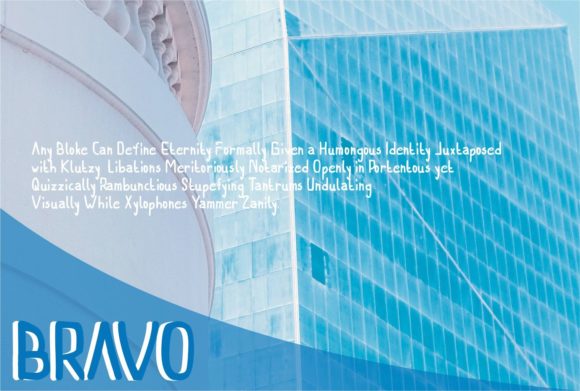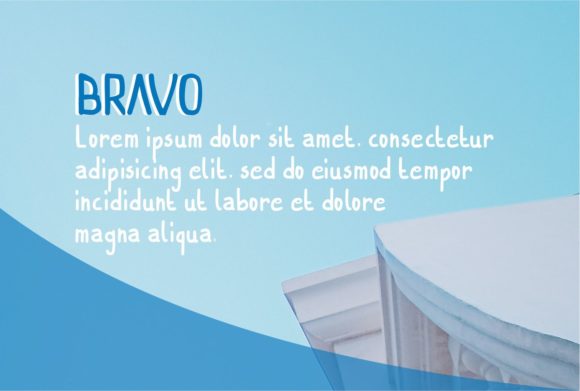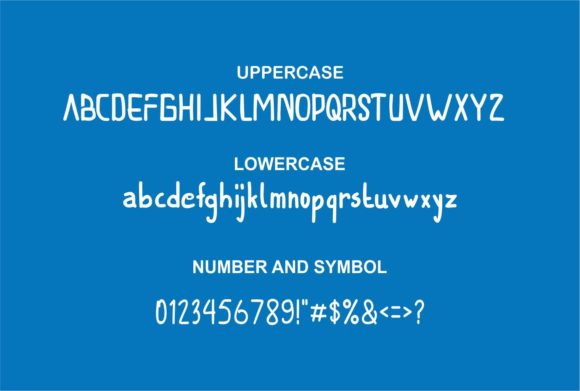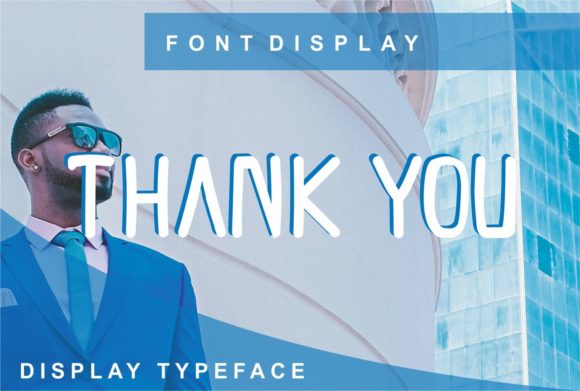
The Perfect Font for Your Next Creative Masterpiece
Have you ever stared at a blank canvas, wondering how to bring your ideas to life? The blank page can be intimidating, but what if I told you that the right font could be the missing piece of the puzzle? The Bravo Font is here to save the day, and it’s more than just a stylish addition to your design library.
This adaptable display font is perfect for making a statement, whether you’re working on a branding project, creating a social media campaign, or designing a eye-catching poster. The Bravo Font is an incredible asset to any designer’s toolkit, and its versatility makes it valuable for a wide range of creative projects. With its trendy style and endless possibilities, the Bravo Font is sure to elevate your work to the next level.
Bravo Font Key Features
- Unique Characteristics: Bravo Font features a modern, sans-serif design with a unique blend of geometric and organic elements, making it suitable for a wide range of applications.
- Kerning and Ligatures: Bravo Font includes advanced kerning and ligature pairs, ensuring that text sets are beautifully typeset and visually appealing.
Bravo Font Review
I recently had the chance to work with the Bravo Font, and here’s my honest take on it.
The Bravo Font has a unique, elegant design that catches the eye. Its slender strokes and refined curves make it perfect for creating a sophisticated look in branding and typography projects.
- Excellent for use in high-end branding and luxury goods
- Beautifully crafted to create a sense of refinement and elegance
- Works well in both print and digital mediums
While the Bravo Font is well-suited for certain applications, it may not be the best choice for every project.
- Can be difficult to read in smaller font sizes
- May not be ideal for use in body text, as it can be a bit too ornate
- Not as versatile as some other fonts, which may limit its use in certain contexts
The Bravo Font is a beautiful, elegant font that excels in certain situations. While it may not be the best choice for every project, it’s definitely worth considering for high-end branding and luxury goods projects. With a little careful planning and design consideration, the Bravo Font can be a valuable addition to any designer’s toolkit.
Bravo Font is commonly used in:
- Logo designs and branding materials.
- Marketing materials such as brochures and flyers.
- Web design and development projects.
Alternatives to Bravo Font for Designers
Montserrat is a modern sans-serif font designed for digital use. It’s clean, geometric, and highly legible. Use it for headings, titles, and body text where you want a sleek, urban feel.
Comparison to Bravo Font: Montserrat is more geometric and has a stronger grid-based structure, while Bravo Font is more rounded and has a softer feel. Montserrat is ideal for digital design, while Bravo Font is better suited for print materials.